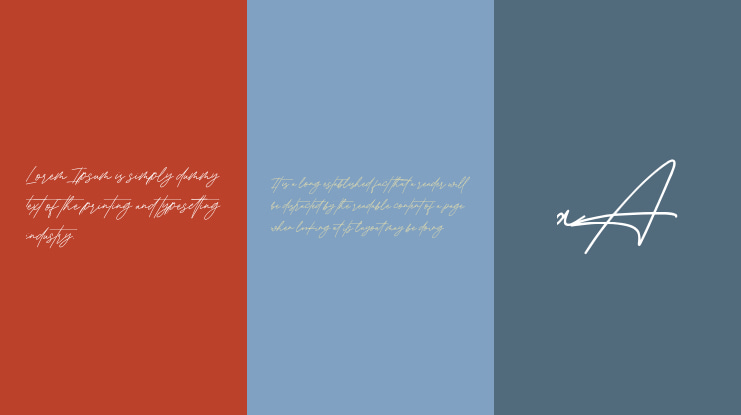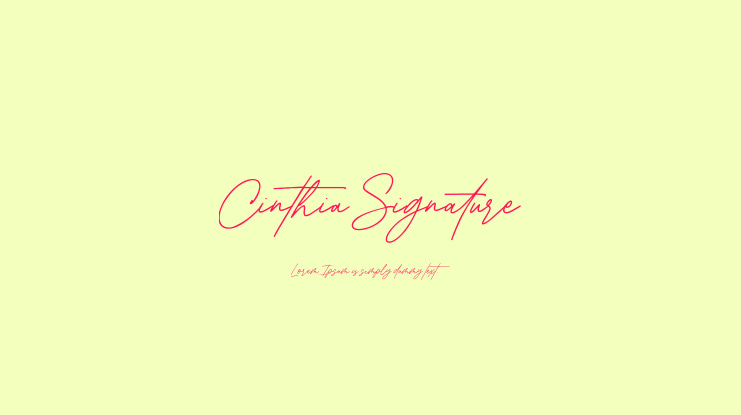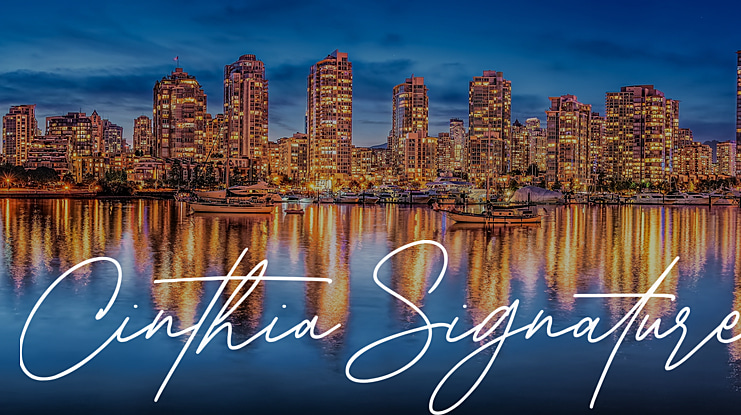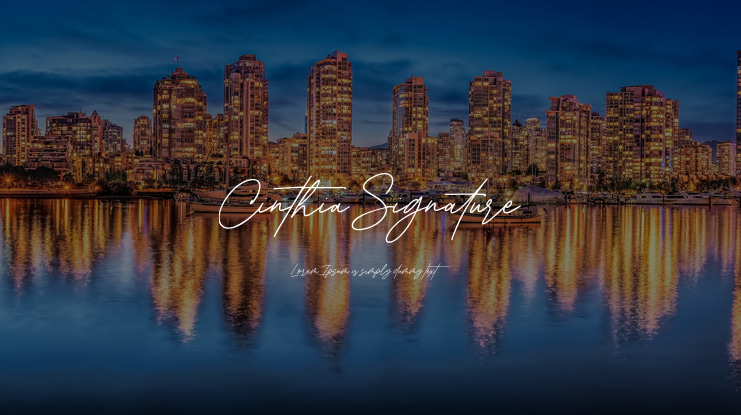
Cinthia Signature Font
Cinthia Signature Script Font is a cute and dainty handwritten font. Use Cinthia Signature to create super beautiful logos, branding, notebooks, journals, labels, stickers, blogs, quotes, greeting cards, tea towels, apparel, pillows, mugs, toys, posters, baby clothing, picture books and so much more…basically anything that requires a stylish and handwritten look!
– Uppercase, Lowercase, Numeral & Punctuation
– Alternate Letters, Ligature & Swash/Tail